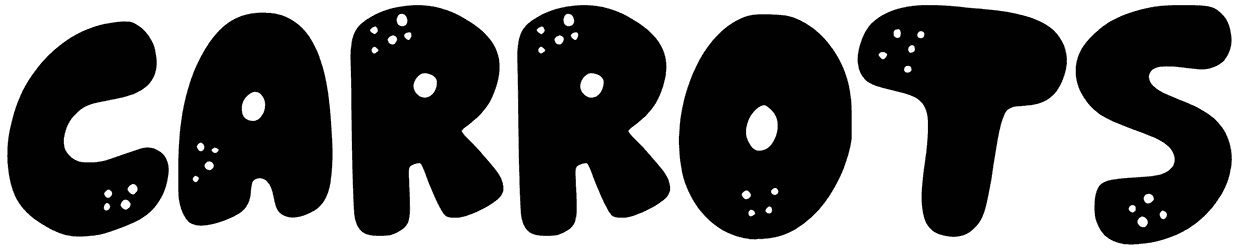
Carrots Font
When you use a cute and fluffy bunny font, the final design will become lovely and memorable. This Easter font, with its playful and soft form, can create such a face. The Carrots font doesn’t cover lowercase letters and some numbers, but let’s put it on your easter flyer and see how amazing it’s going to be.